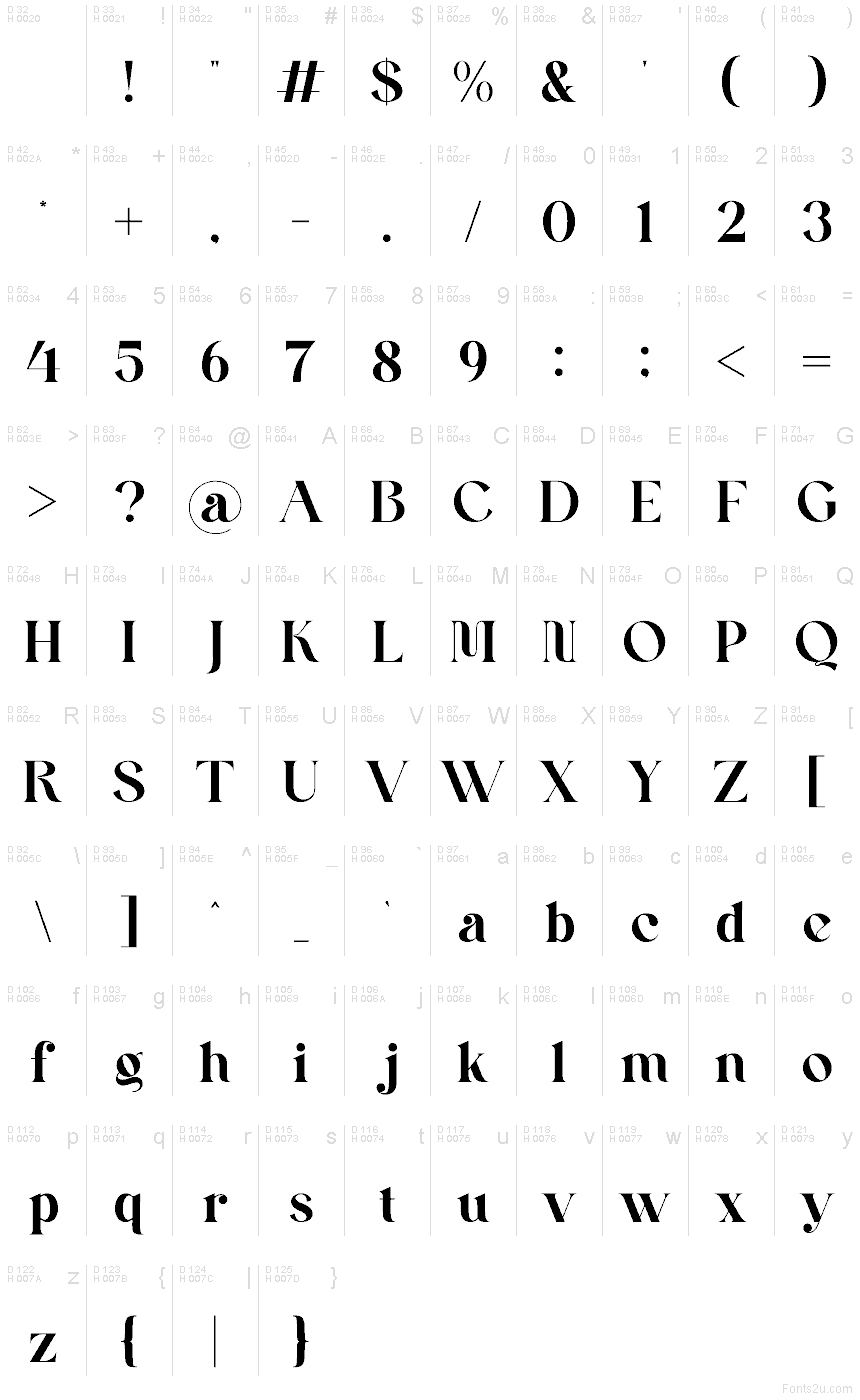
Rouica
Rouica font by ErmediaStudio is a free high-contrast serif font. Its defining move is the sculpted negative space—those carved, inky hollows and blade-sharp serifs that catch light like polished stone. Thick-and-thin strokes snap into a steady cadence, giving headlines a luxe, editorial voice without feeling brittle. It reads as tailored rather than fussy, with smooth curves that glide into crisp edges.
Using Rouica, you’ll get striking results on fashion branding, beauty packaging, magazine covers and feature headers, event invitations, poster campaigns, and logo wordmarks. This free font shines on large headlines with a touch of extra tracking; for body copy, pair it with a clean geometric sans to keep layouts airy and modern.